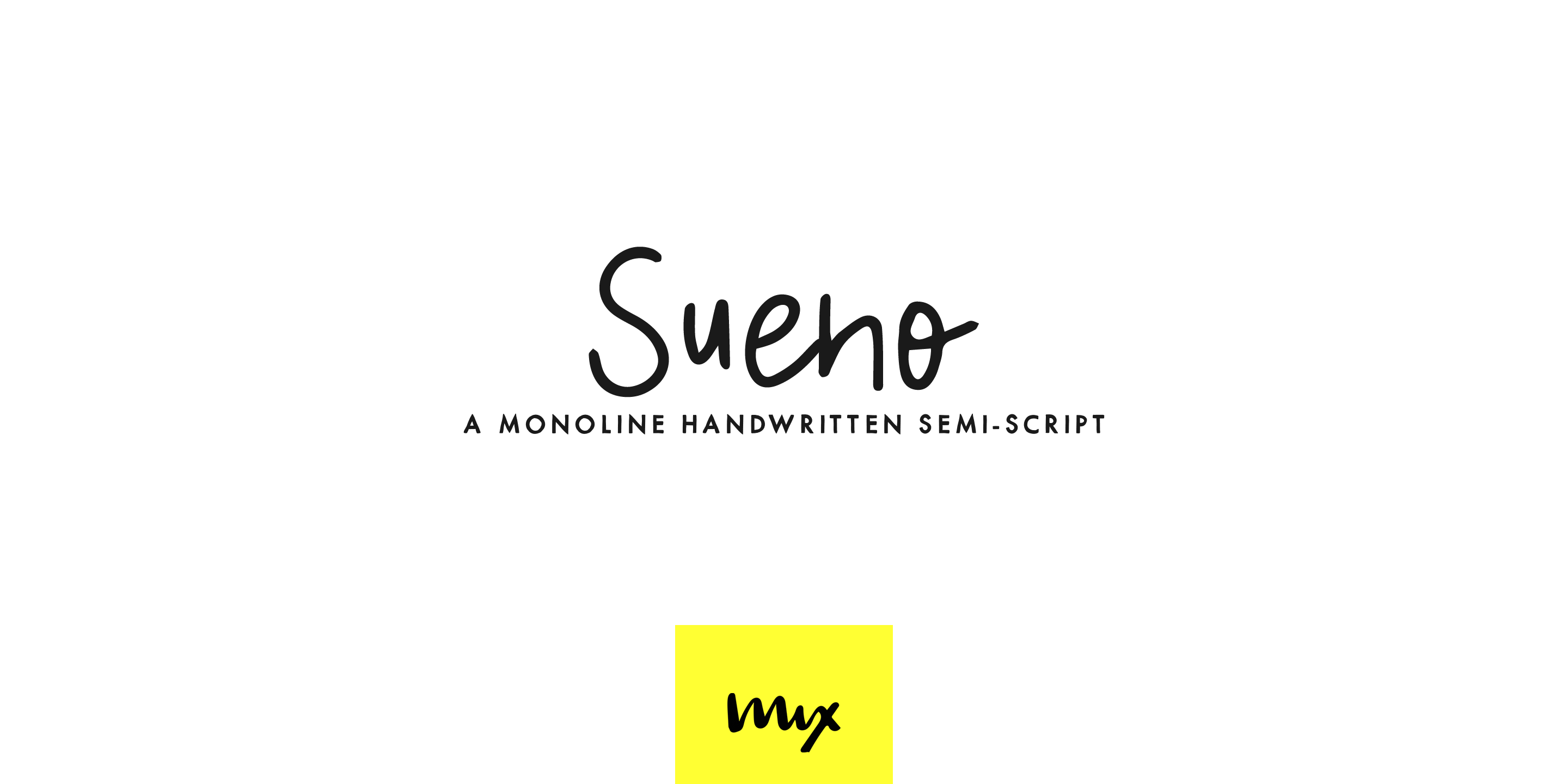
Sueno Font is a beautifully elegant and expressive typeface, perfect for designs that aim to convey sophistication, personal touch, and a hint of artistic flair. Imagine it adding a touch of grace to luxury brand packaging, enhancing the aesthetic of high-end wedding invitations, or giving a unique identity to artisan product labels. It’s an exceptional choice for stylish photography watermarks, engaging blog headers, refined magazine layouts, and any project where a sense of bespoke craftsmanship is desired. Its flowing lines and delicate curves make it particularly suitable for signature logos, personal branding, and all forms of creative communication that call for an authentic, handcrafted feel.
What makes Sueno Font truly exciting is its remarkable ability to blend classic calligraphic charm with modern readability. It possesses an organic, handcrafted quality that feels both intimate and polished, making it incredibly appealing for a wide range of elegant projects. Designers are often captivated by its fluid rhythm and the subtle variations in its strokes, which give each character a unique personality while maintaining overall harmony. It’s a font that conveys warmth, authenticity, and a refined artistic sensibility, making your message resonate with genuine emotion. Sueno Font adds a layer of sophisticated artistry, ensuring your designs stand out with timeless appeal and a distinctive character.
The Sueno Font family typically offers a thoughtful range of styles to enhance its versatility across different design needs. While specific family members may vary, you can often expect to find a graceful Regular weight, sometimes accompanied by an elegant Italic version to add a dynamic flow. Many Sueno Font families also include a variety of stylistic alternates, ligatures, and swashes, which allow for extensive customization and truly unique typographic compositions. These additional features enable designers to create highly personalized text, ensuring that Sueno Font can adapt to intricate design requirements while maintaining its beautiful, expressive character across various applications and sizes.